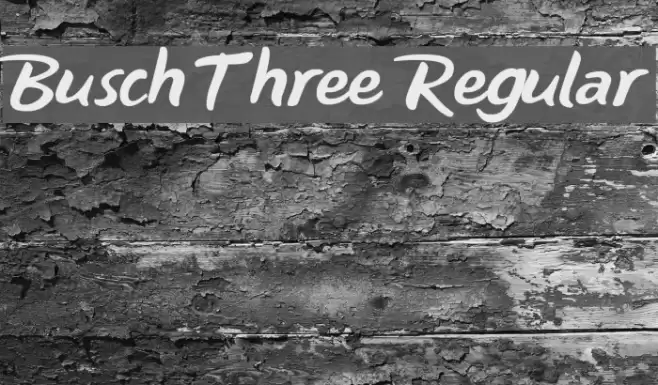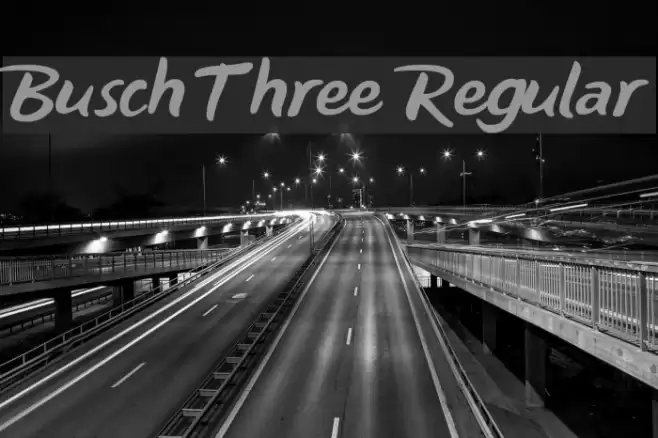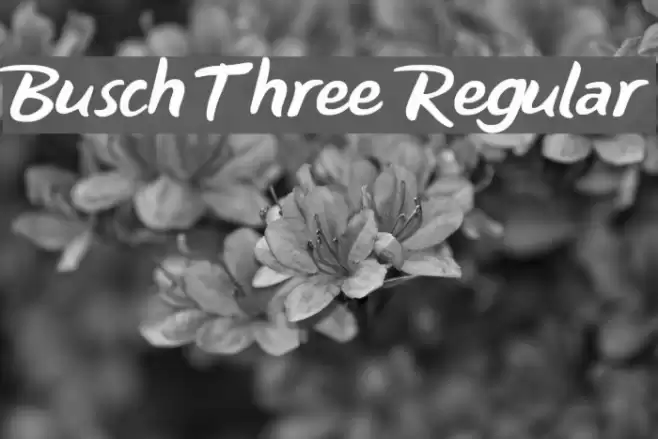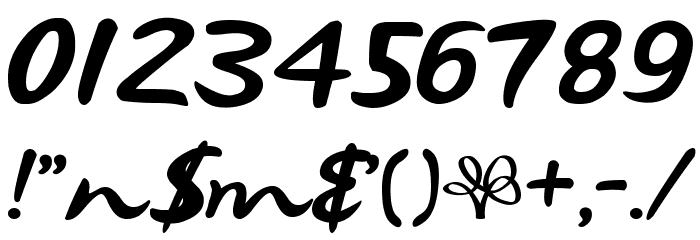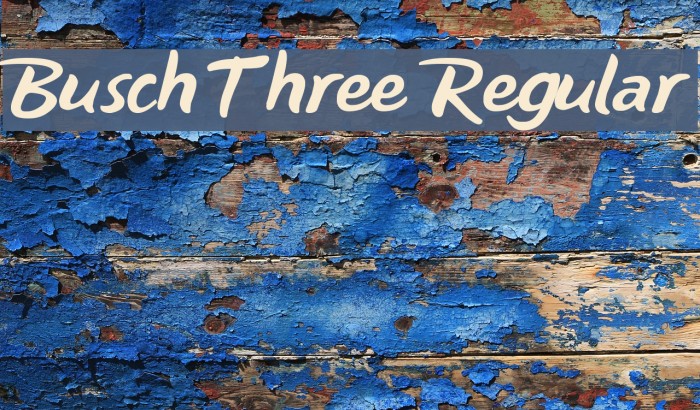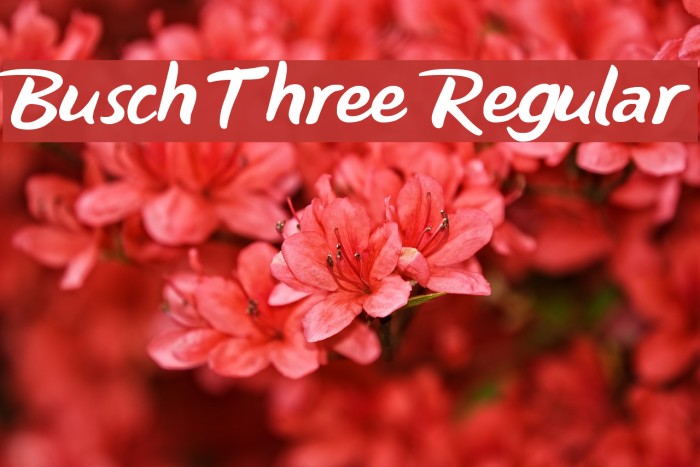
Busch Three Regular Font
Busch Three Regular Description
This font features a dynamic and fluid script style, characterized by its smooth, flowing curves and slightly slanted orientation. The uppercase letters are bold and expressive, with a sense of movement that suggests a handwritten quality. The lowercase letters maintain a consistent style, with rounded edges and a playful, casual appearance. The numerals are clear and legible, matching the overall aesthetic of the alphabet. Special characters are creatively integrated, adding to the font's versatility. This font exudes a sense of personality and charm, making it suitable for projects that require a personal touch.
A dynamic and fluid script font with a handwritten quality and playful charm from Uncategorized fonts.